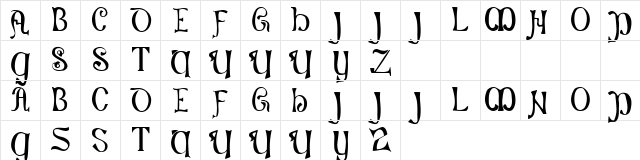
Jungle Joint Regular
Design Context for Jungle Joint Typeface
Jungle Joint is a composed and adaptable typeface that performs quietly and consistently across a wide range of design contexts.
Pro Tip: Use Jungle Joint in both headline and body roles to test its range before committing to a single application.